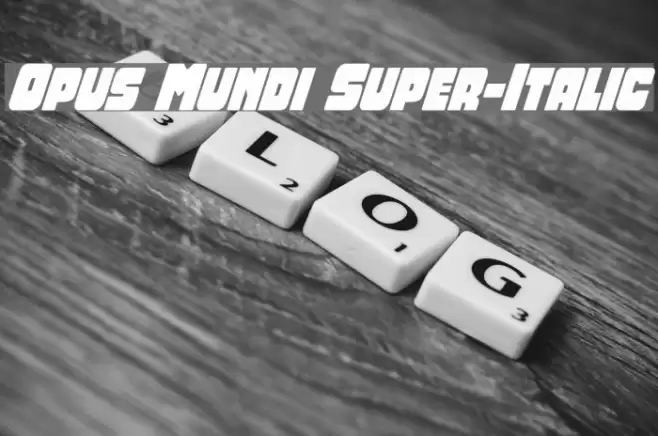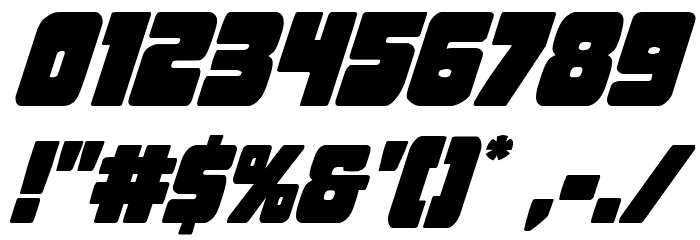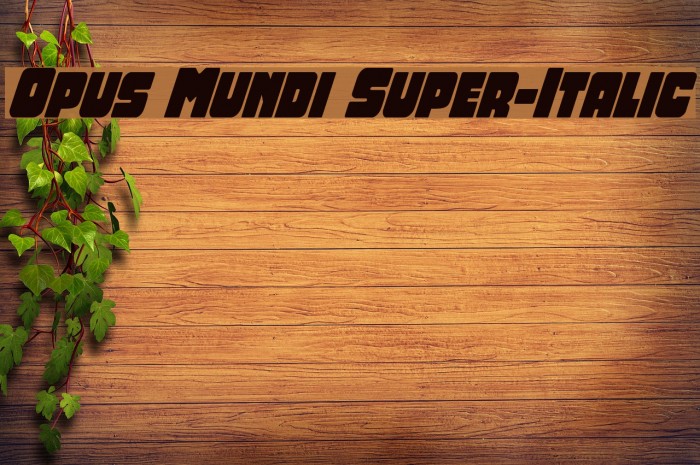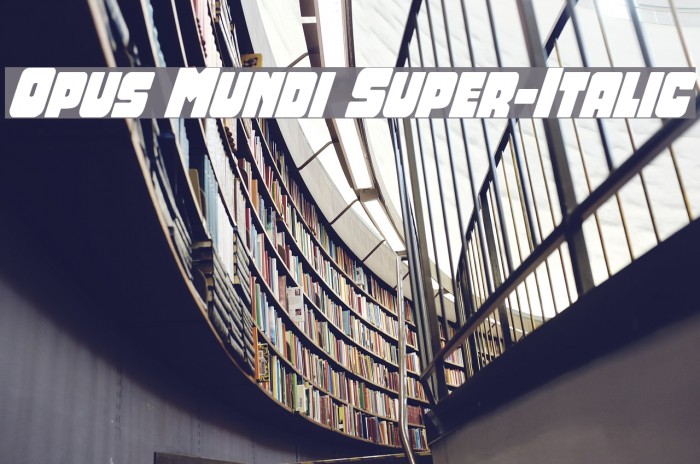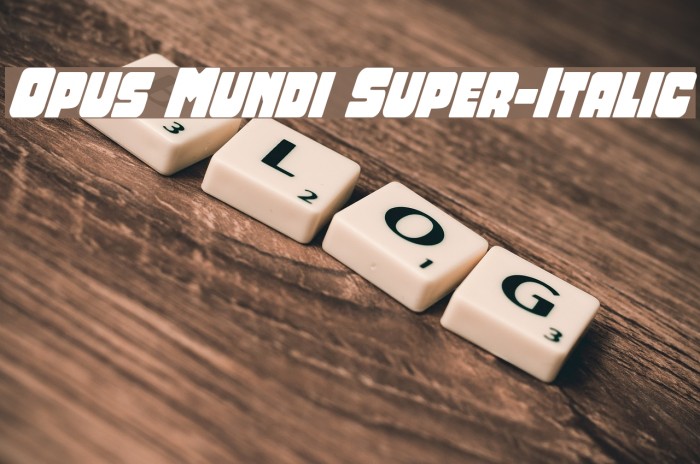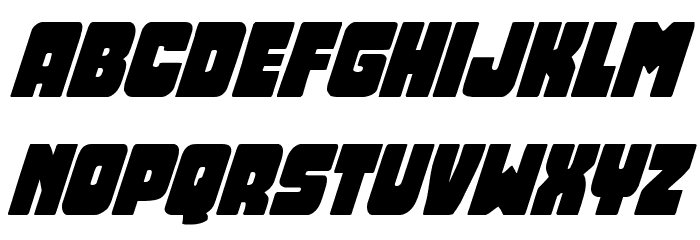
Opus Mundi Super-Italic Font
Opus Mundi Super-Italic Description
This font features a bold and dynamic style with a strong italic slant, giving it a sense of motion and energy. The characters are wide and heavily weighted, with a consistent stroke thickness that contributes to its bold appearance. The design is modern and impactful, making it suitable for attention-grabbing headlines or branding. The uppercase and lowercase letters maintain a uniform style, with rounded edges that soften the overall look. Numbers and special characters are designed with the same boldness and slant, ensuring consistency across all glyphs.
A bold, italic font with a dynamic and modern style from Uncategorized fonts.
- Proposed Projects: Ideal for sports branding, dynamic posters, and modern advertising campaigns.
- Width: Expanded